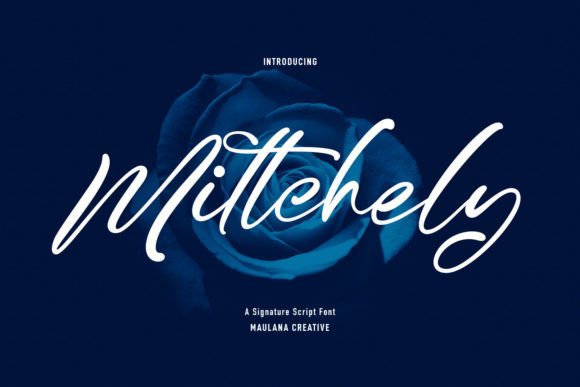
Introducing Mittchely Font, the captivating script font that will transform your designs into works of art. Step into a world of elegance and creativity, where each stroke of Mittchely's brush carries the charm of hand-written artistry.
Unleash your imagination and craft stunning wedding invitations that evoke the romance of the occasion. Let Mittchely's flowing curves add a touch of whimsy to your stationary art, making your creations stand out. Captivate your audience with eye-catching social media posts that showcase the beauty of Mittchely's script.
Mittchely's versatility extends beyond traditional applications. Its dynamic style lends itself perfectly to creating eye-catching banner designs that command attention and leave a lasting impression. Whether you're designing for online campaigns or offline marketing materials, Mittchely's versatility will elevate your designs to new heights.
Embrace the allure of Mittchely Font and let your creativity soar. Its inked signature style evokes a sense of authenticity and warmth, adding a personal touch to all your projects. Fall head over heels in love with Mittchely's charm and experience the joy of creating designs that captivate and inspire.